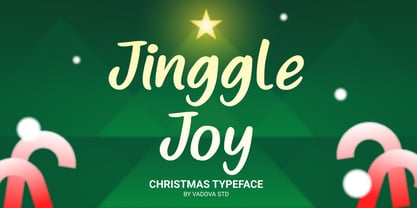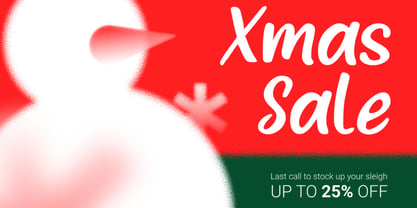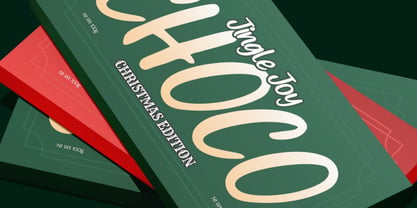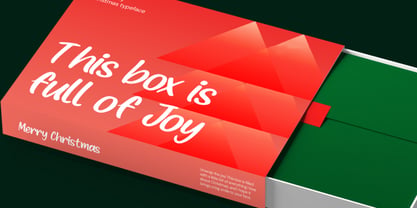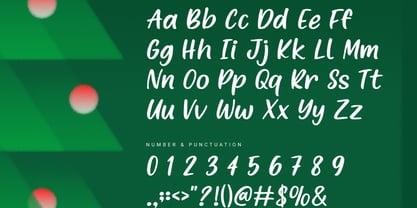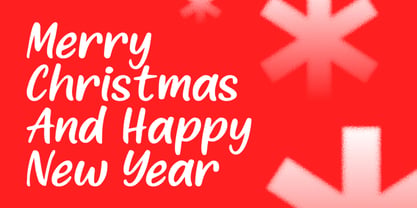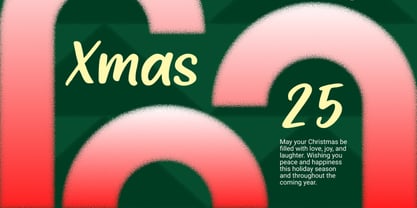
Jinggle Joy
von Vadova Std
Die Schriftfamilie Jinggle Joy wurde von entworfen und von Vadova Std veröffentlicht. Jinggle Joy enthält 1 Stile. Mehr über diese Familie
Jinggle Joy is a charming handwritten typeface designed to spread cheer during the festive season. With its smooth curves and playful strokes, this font embodies the spirit of Christmas in every letter. It includes uppercase and lowercase characters, punctuation, and numbers, making it versatile for various holiday design projects. Perfectly suited for greeting cards, social media posts, holiday packaging, invitations, and more. Jinggle Joy adds a touch of joy and warmth to any creative work. Jinggle Joy is ideal for holiday-themed projects that require a personal, heartfelt touch. Use it for Christmas cards, New Year event posters, festive social media graphics, winter sale promotions, and seasonal branding. Its friendly handwritten feel makes it perfect for designs that aim to evoke warmth, celebration, and joyful emotions.